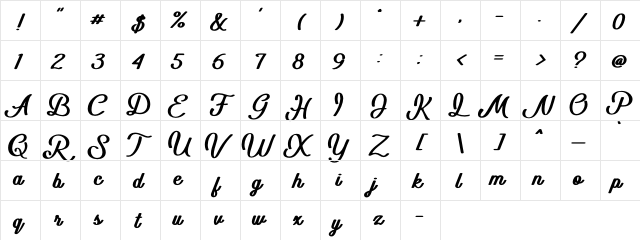
Bio Monster Regular
| Designer | Lettersiro 2017 |
Design Context for Bio Monster Typeface
Bio Monster is a composed and adaptable typeface that performs quietly and consistently across a wide range of design contexts.